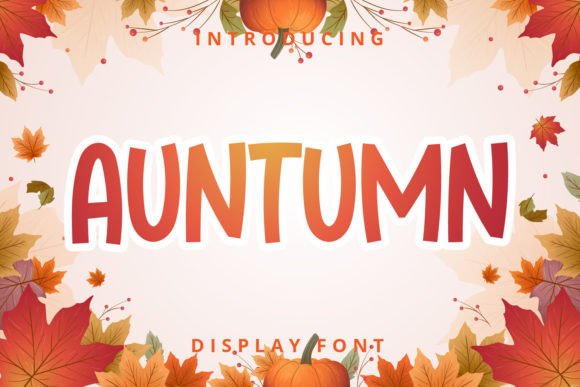
Auntumn Font: The Perfect Choice for Fun and Playful Designs
Auntumn Font is a brilliant, fun, and cute display font that is sure to make your designs stand out. With its unique and playful style, it is perfect for children-themed designs, especially when combined with bright colors. In this article, we will explore the features and benefits of Auntumn Font, and why it is an excellent choice for your next design project.
What is Auntumn Font?
Auntumn Font is a display font designed to add a touch of fun and playfulness to your designs. Its unique style is characterized by bold lines, cute shapes, and a carefree spirit that makes it perfect for designs that require a youthful and energetic feel. Whether you’re designing a children’s book, a kids’ party invitation, or a fun and colorful poster, Auntumn Font is the perfect choice.
Key Features of Auntumn Font
- Brilliant and Fun Design: Auntumn Font is designed to be attention-grabbing and fun, making it perfect for designs that require a playful touch.
- Cute and Playful Style: The font features cute shapes and bold lines that give it a unique and youthful feel.
- Perfect for Children-Themed Designs: Auntumn Font is specifically designed for children’s designs, making it an excellent choice for kids’ party invitations, children’s books, and more.
- Works Well with Bright Colors: The font is optimized to work well with bright and bold colors, making it perfect for designs that require a pop of color.
Benefits of Using Auntumn Font
There are many benefits to using Auntumn Font in your designs. Here are a few:
Why Choose Auntumn Font?
- Adds a Touch of Fun and Playfulness: Auntumn Font adds a touch of fun and playfulness to your designs, making them more engaging and attention-grabbing.
- Perfect for Kids’ Designs: The font is specifically designed for children’s designs, making it an excellent choice for kids’ party invitations, children’s books, and more.
- Easily Readable: Despite its playful style, Auntumn Font is easily readable, making it perfect for designs that require a clear and concise message.
- Versatile: Auntumn Font can be used in a variety of designs, from posters and invitations to children’s books and more.
How to Use Auntumn Font in Your Designs
Using Auntumn Font in your designs is easy. Here are a few tips to get you started:
Design Tips for Using Auntumn Font
- Pair with Bright Colors: Auntumn Font works well with bright and bold colors, so don’t be afraid to experiment with different color combinations.
- Use for Headings and Titles: The font is perfect for headings and titles, making it an excellent choice for posters, invitations, and more.
- Experiment with Different Sizes: Auntumn Font can be used in a variety of sizes, from small to large, so experiment with different sizes to find the one that works best for your design.
- Combine with Other Fonts: Auntumn Font can be combined with other fonts to create a unique and visually appealing design.
Auntumn Font in Action
Auntumn Font can be used in a variety of designs, from children’s books to party invitations. Here are a few examples of how the font can be used:
Examples of Auntumn Font in Action
- Children’s Books: Auntumn Font is perfect for children’s books, adding a touch of fun and playfulness to the text.
- Kids’ Party Invitations: The font is also great for kids’ party invitations, making them more engaging and attention-grabbing.
- Posters and Flyers: Auntumn Font can be used in posters and flyers to add a touch of fun and playfulness to the design.
- Social Media Graphics: The font can also be used in social media graphics, making them more visually appealing and engaging.
Auntumn Font is a brilliant, fun, and cute display font that is perfect for children-themed designs. With its unique and playful style, it is sure to make your designs stand out. Whether you’re designing a children’s book, a kids’ party invitation, or a fun and colorful poster, Auntumn Font is an excellent choice. So why not give it a try and see how it can add a touch of fun and playfulness to your designs?